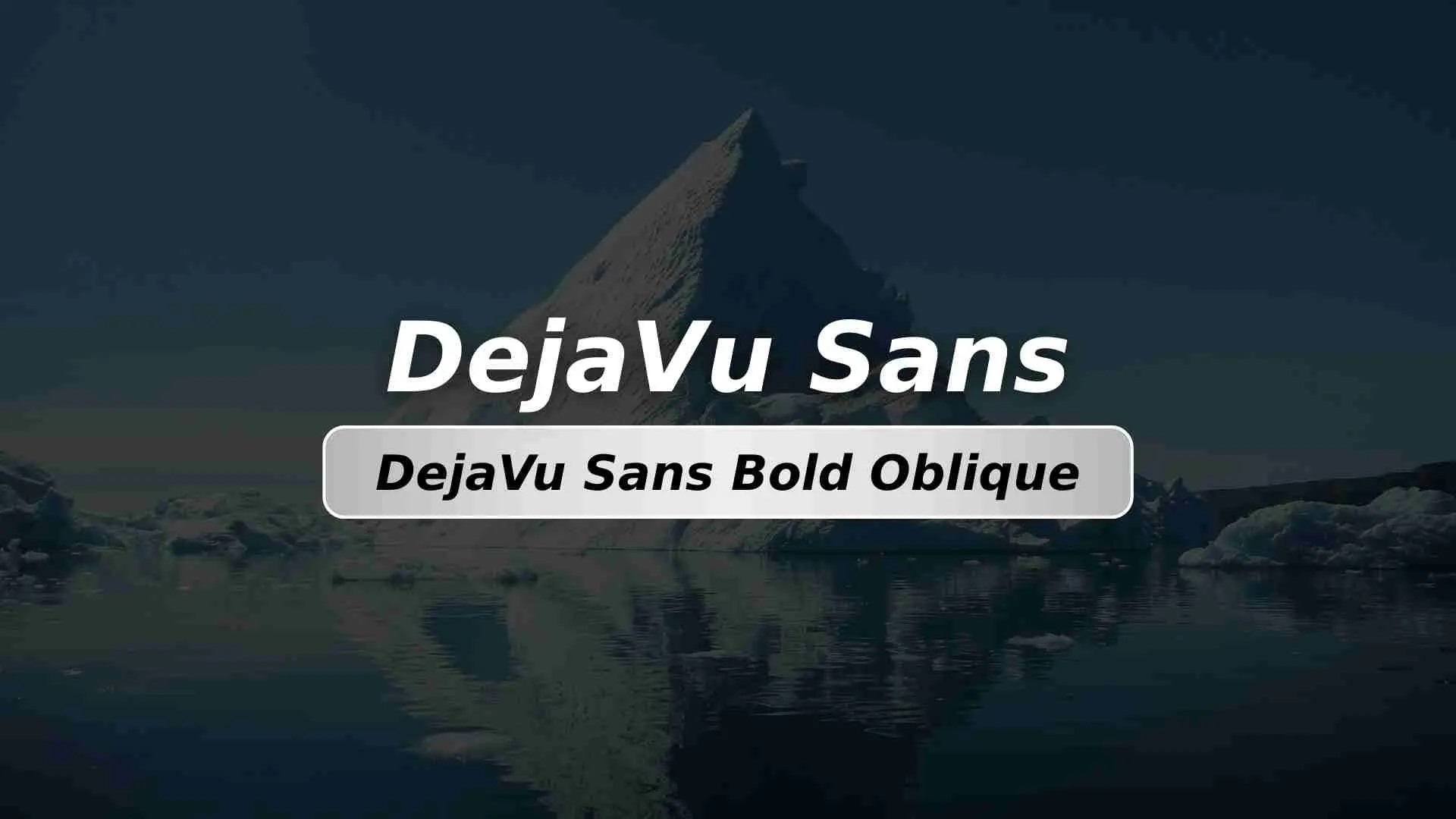
DejaVu Sans Bold Oblique
DejaVu Sans Bold Oblique Font
The font DejaVu Sans Bold Oblique, designed by Bitstream Vera, falls under the Display category & DejaVu Sans font family. Its smooth, flowing letterforms make it a versatile choice for projects that require both elegance and readability. DejaVu Sans is particularly well-suited for Operating System Interfaces, Digital Documents, Web Development and Coding/Technical Contexts. With its balance of simplicity and decorative appeal, this font brings a polished touch to both personal and professional designs.